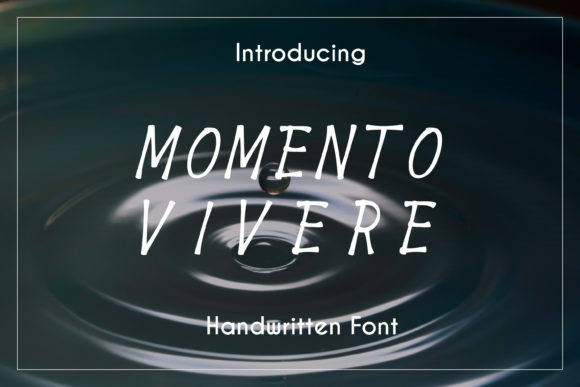
Step into the enchanting world of Momento Vivere, the script font that will ignite your creativity and transform your digital canvas into a captivating work of art. Immerse yourself in the beauty of this handwritten font, designed to evoke a sense of nostalgia and authenticity. Let Momento Vivere add a personal touch to your digital creations, whether you're crafting heartfelt emails, designing stunning social media posts, or embarking on DIY projects that showcase your artistic flair.
With Momento Vivere, elevate your creative expression and make a lasting impression. Its flowing lines and elegant curves will infuse your designs with a touch of sophistication, while its charming imperfections lend a sense of warmth and relatability. Whether you're a seasoned designer or just starting to explore the world of typography, Momento Vivere is the perfect font to bring your visions to life.
Unleash your inner artist and let Momento Vivere be your muse. Its versatility knows no bounds, making it the ideal choice for a wide range of projects. Create mesmerizing logos that capture the essence of your brand, design eye-catching social media graphics that captivate your audience, or add a personal touch to your emails and correspondence. With Momento Vivere, the creative possibilities are limitless.